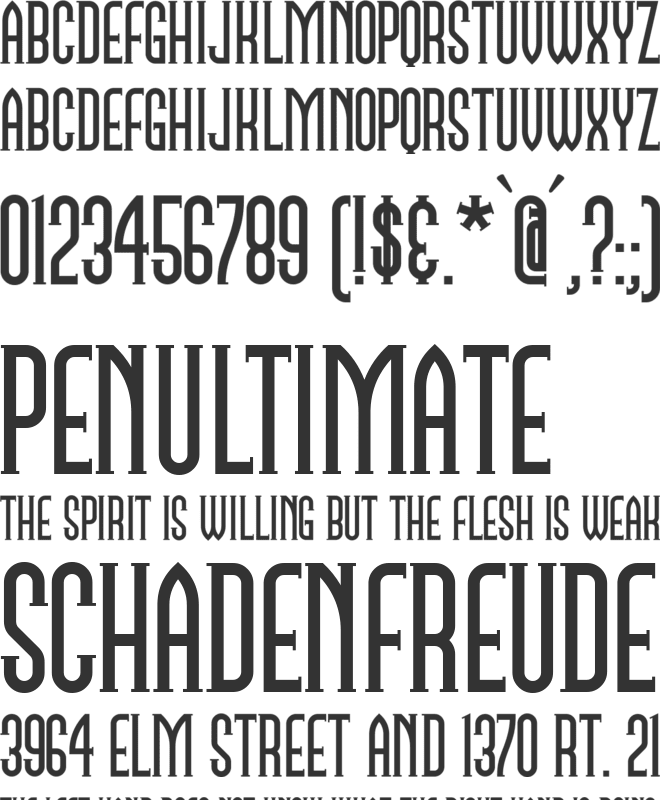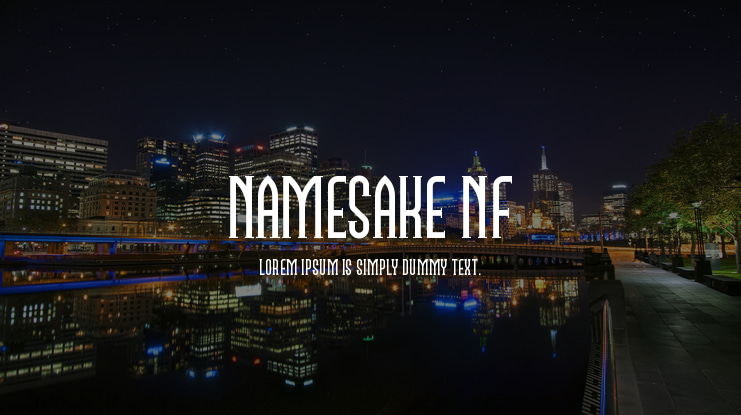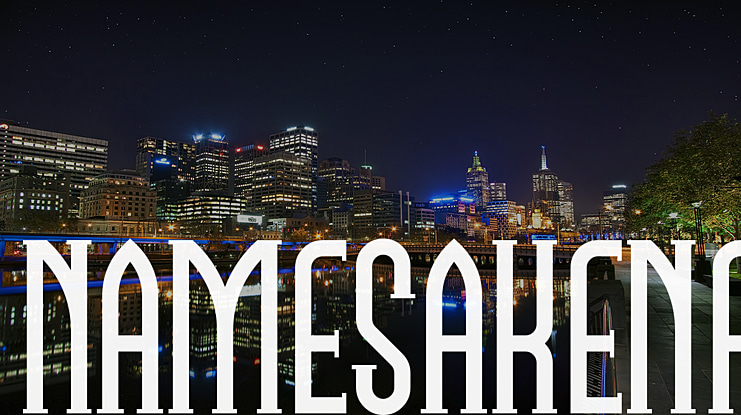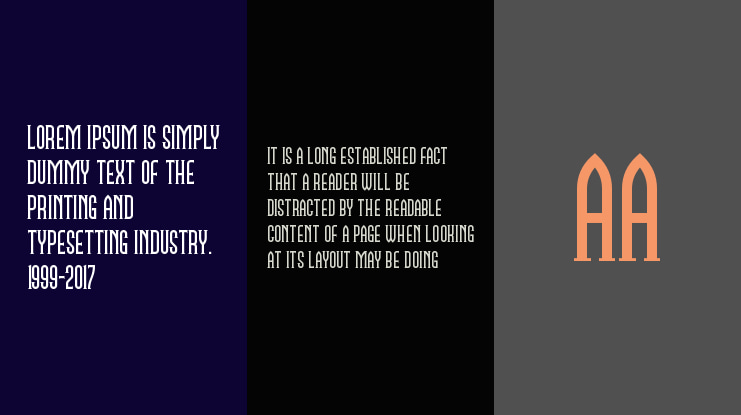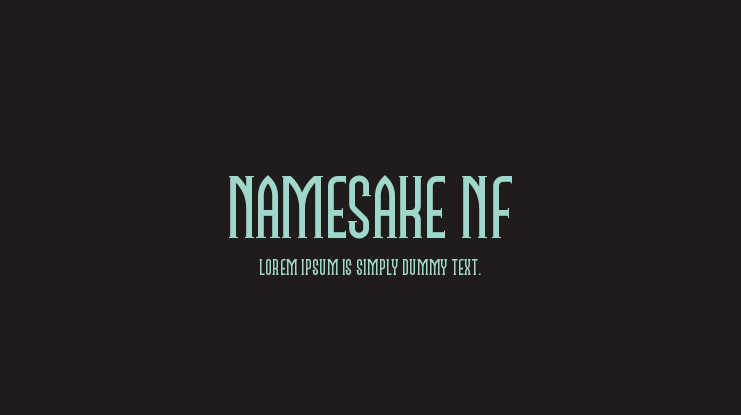
Namesake NF Font
A classic Deco font with an architectural feel, based loosely on Allan Gothic, designed by Allan Brandtner, so I suppose the source of the name is not mystery.